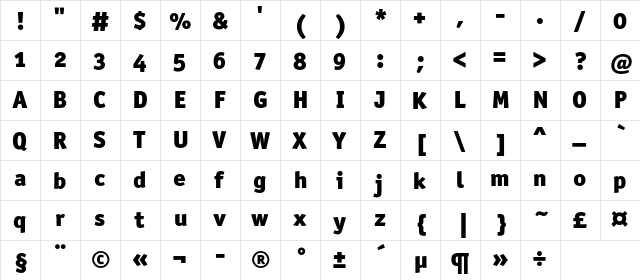
OfficinaSansBlackOSC Regular Font Preview
OfficinaSansBlackOSC Regular
Design Context for OfficinaSansBlackOSC Typeface
OfficinaSansBlackOSC takes a measured approach to typography — its balanced proportions and neutral character make it a reliable workhorse for both digital and print work.